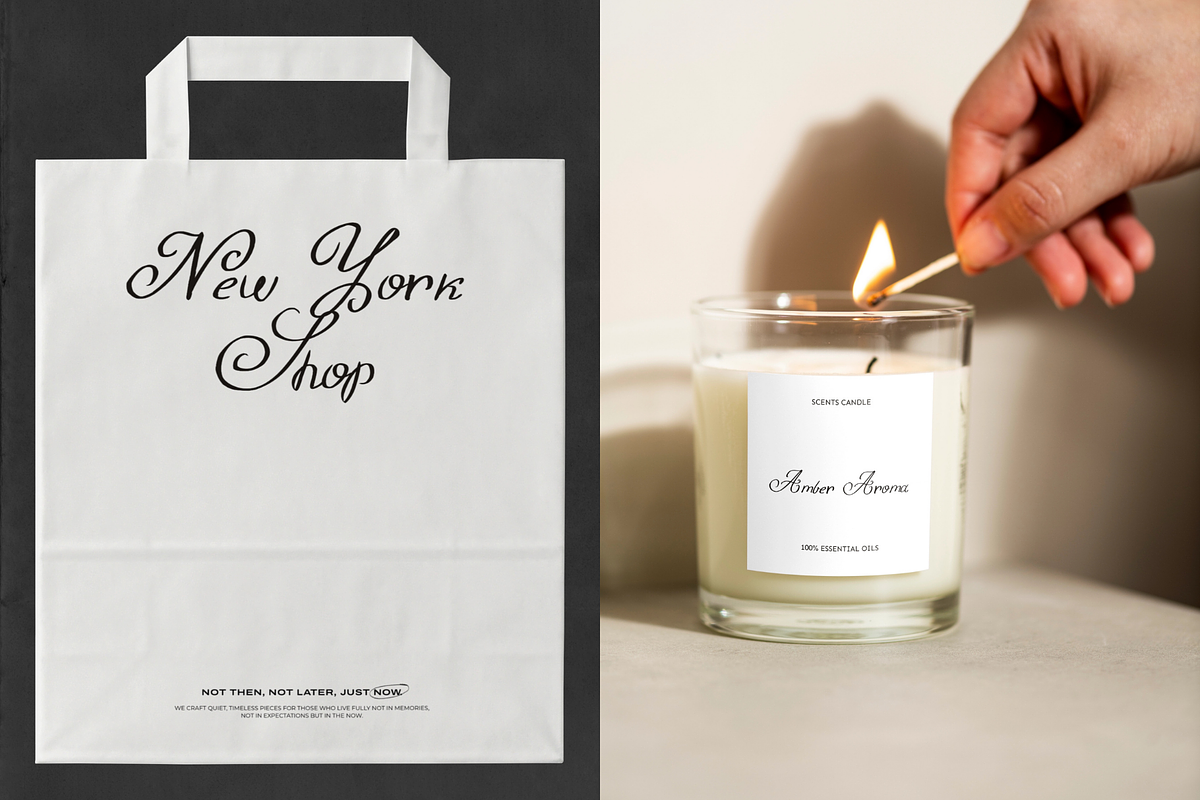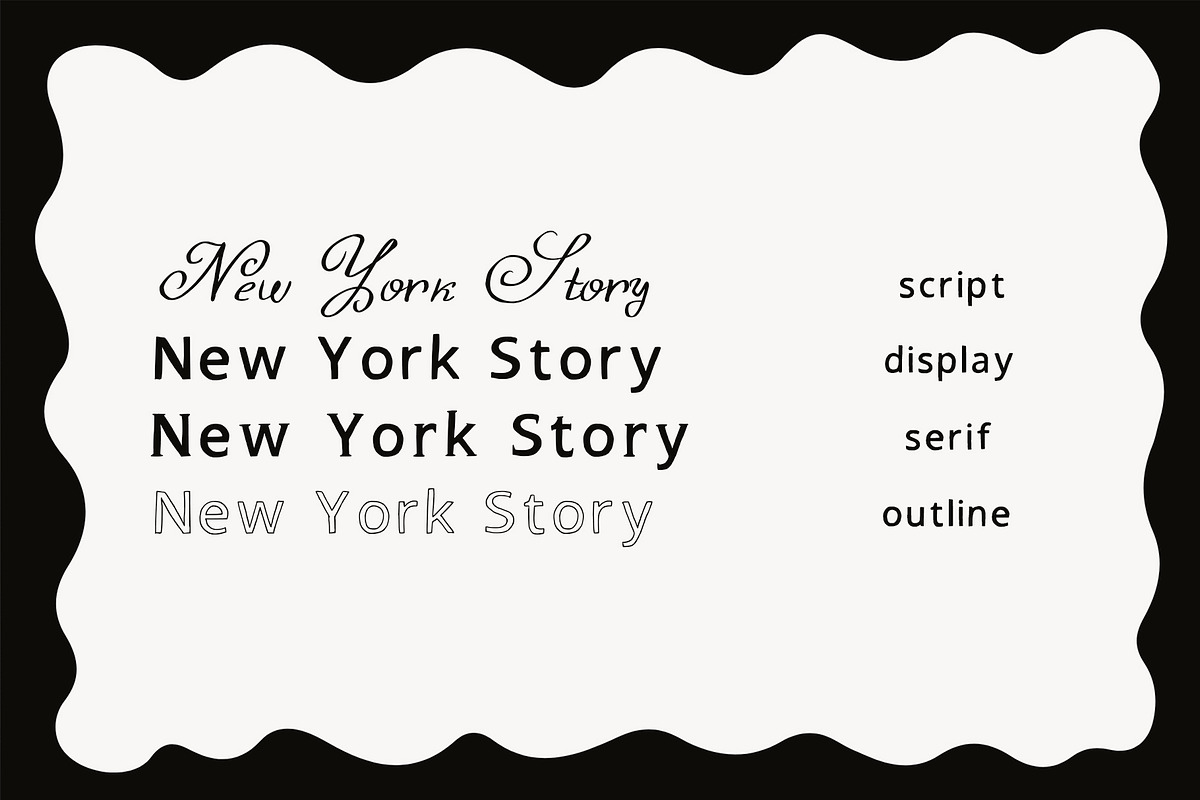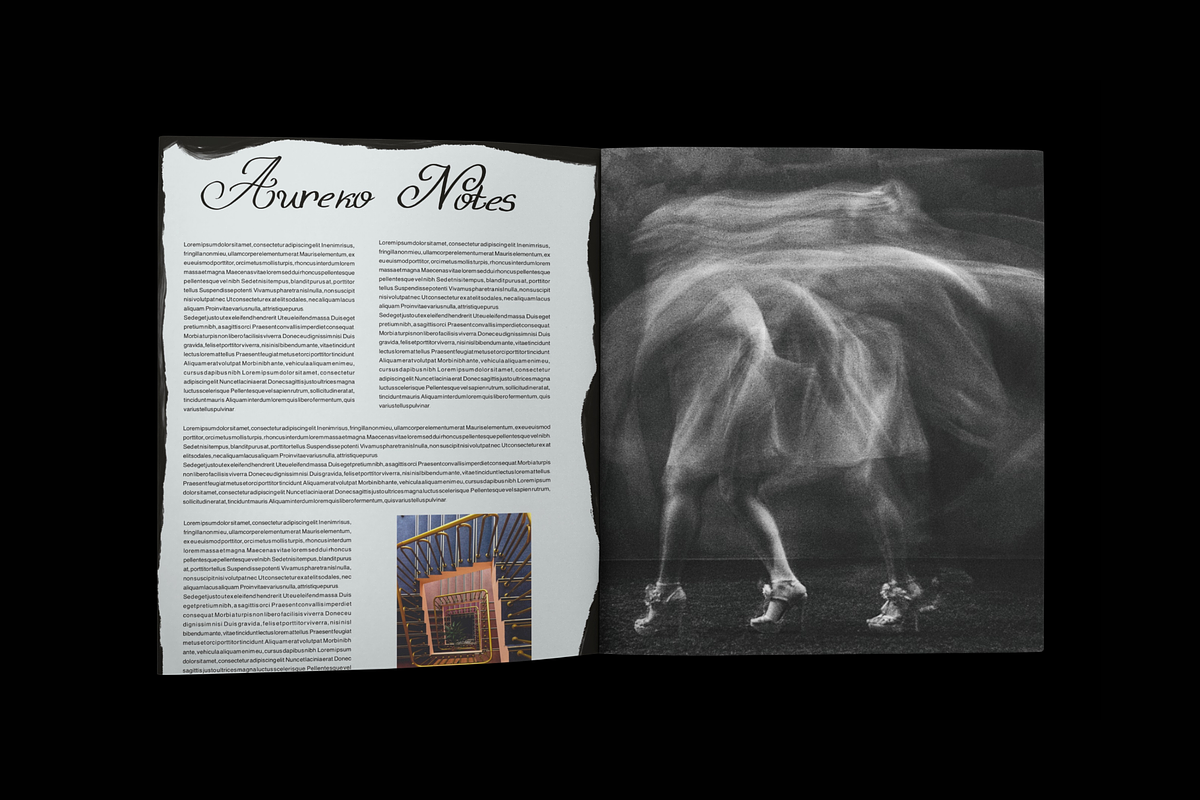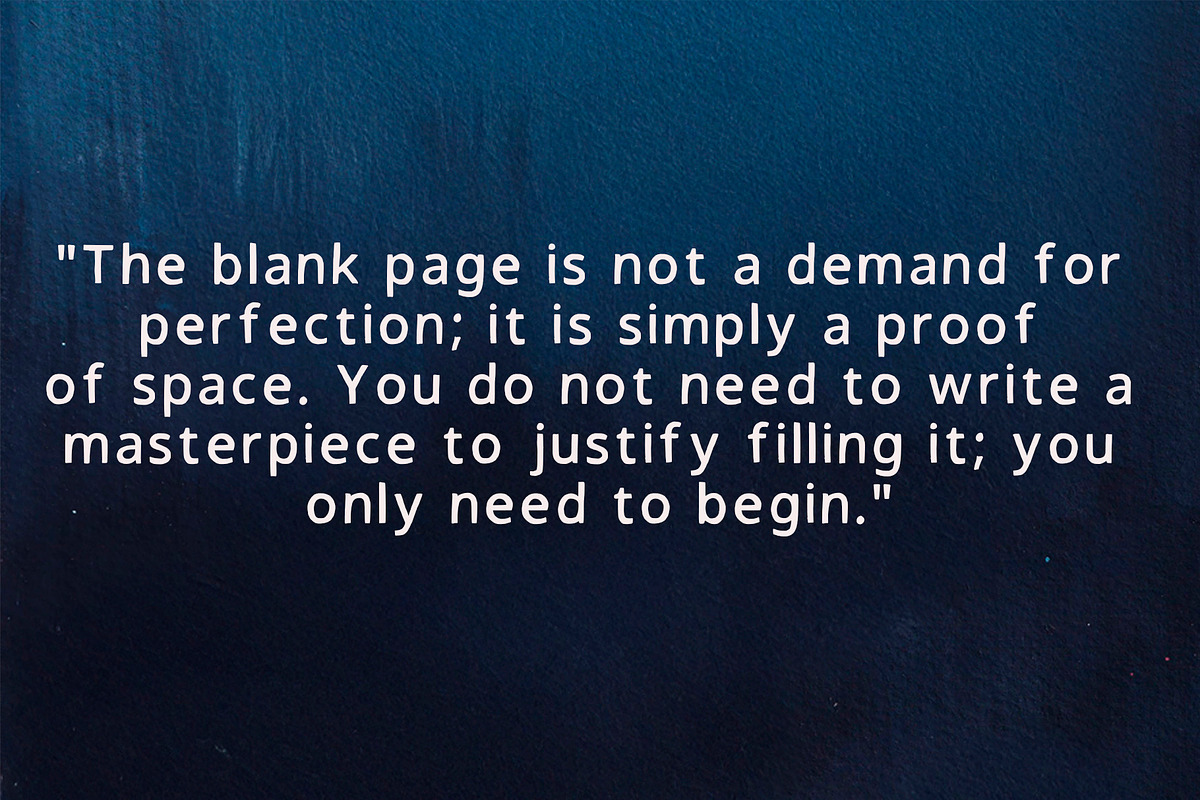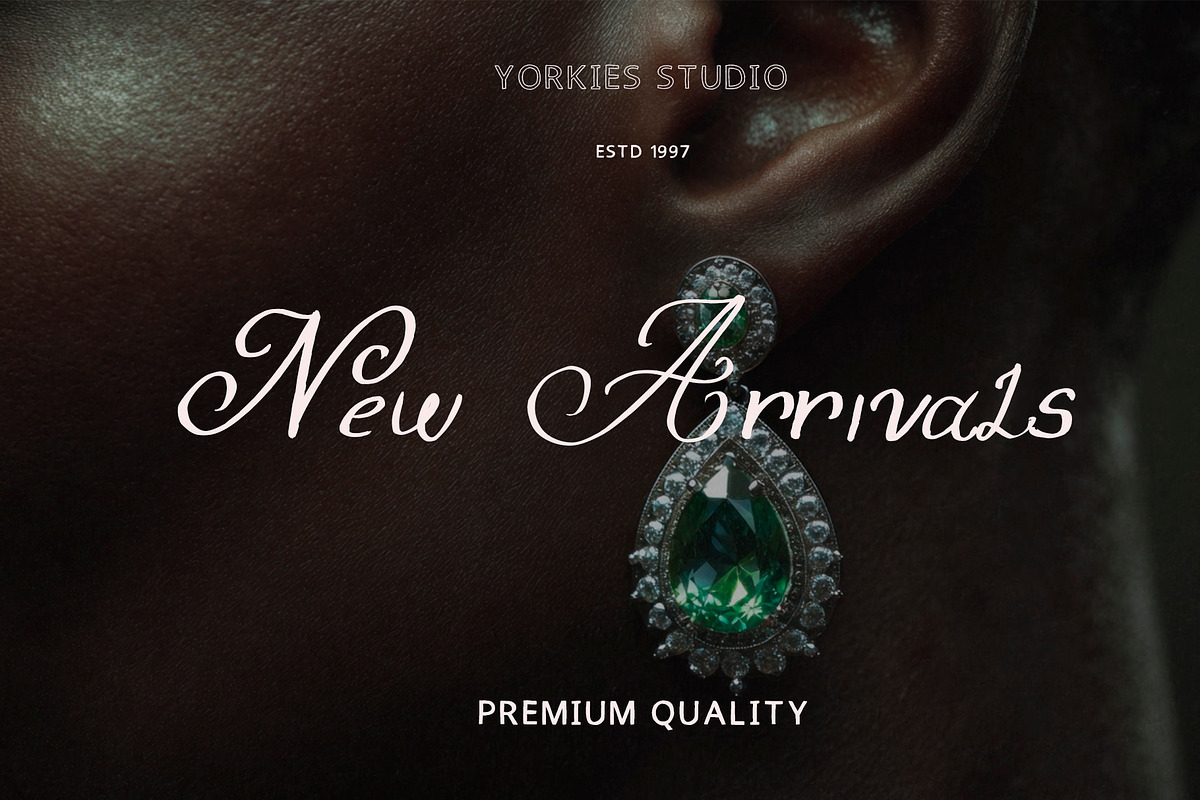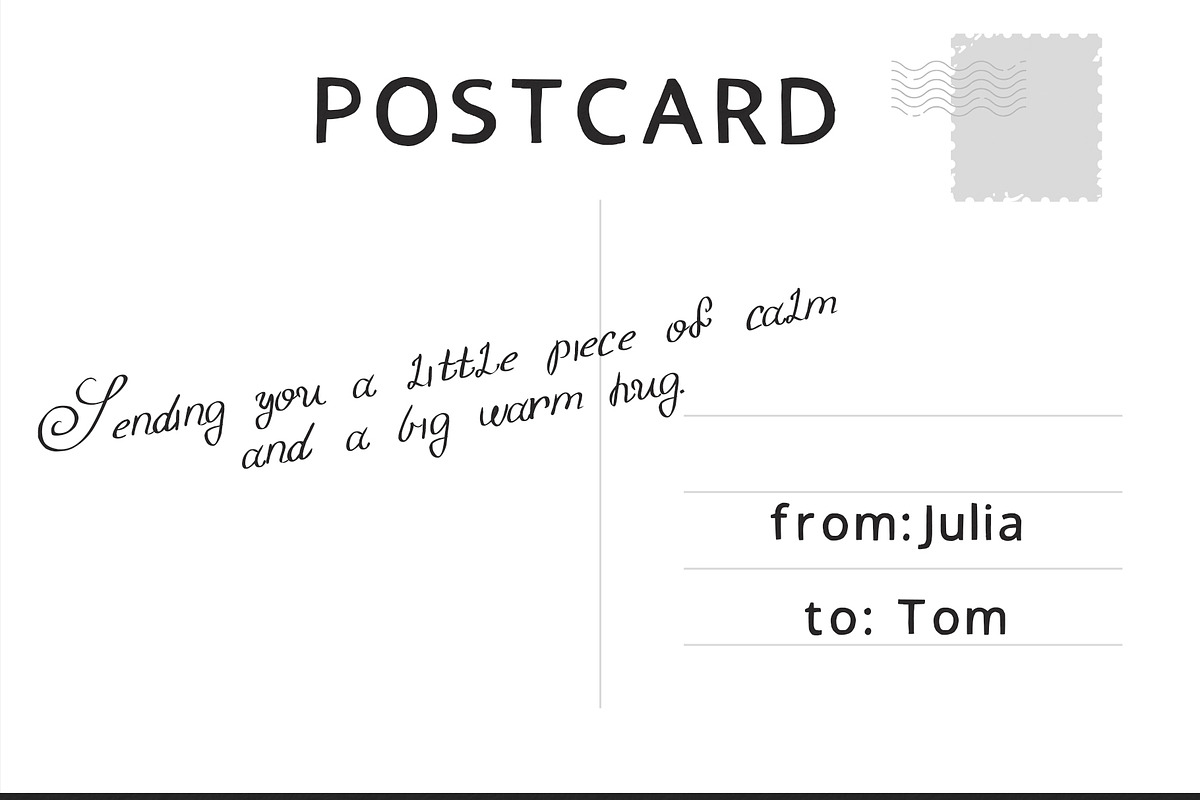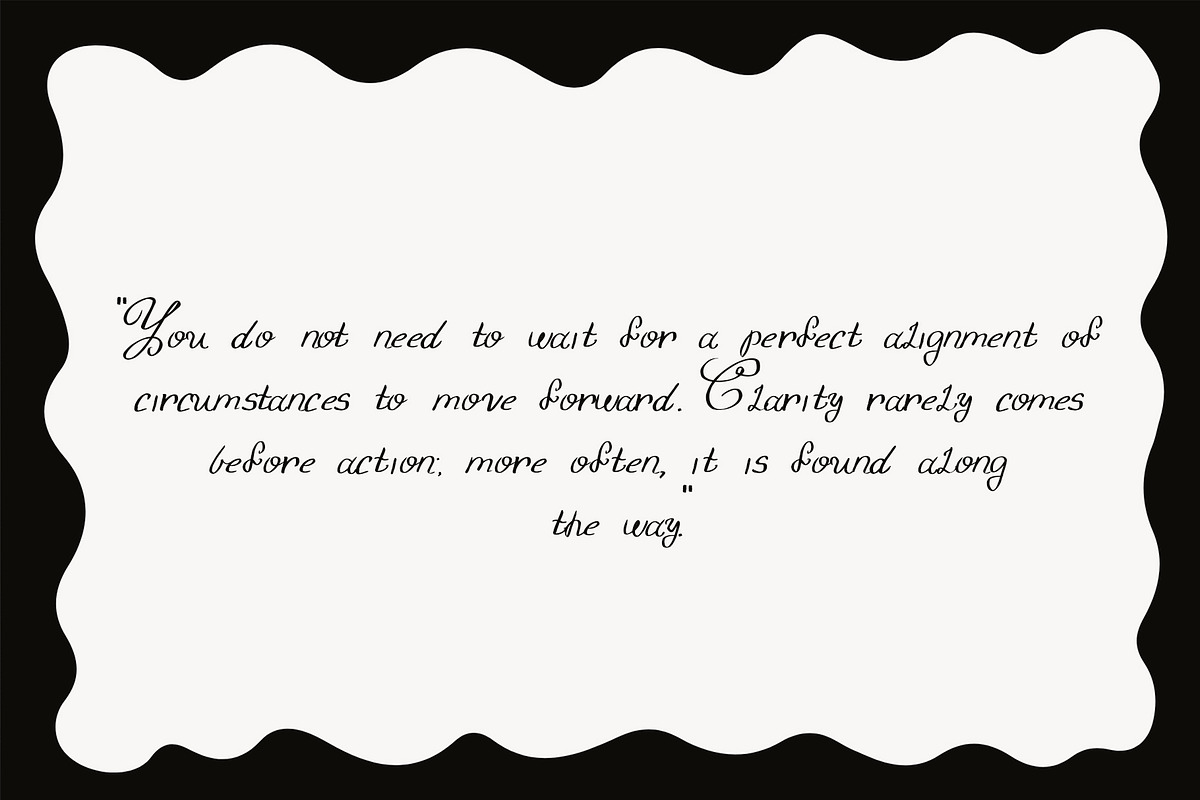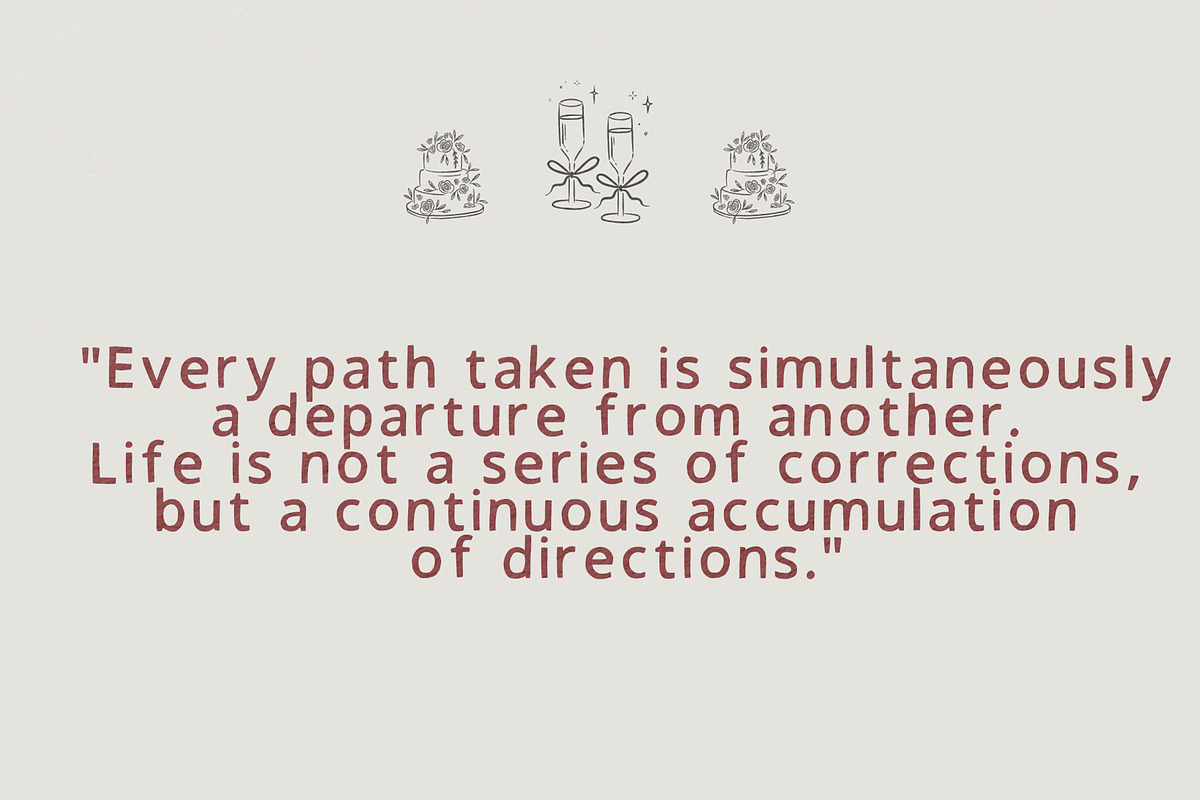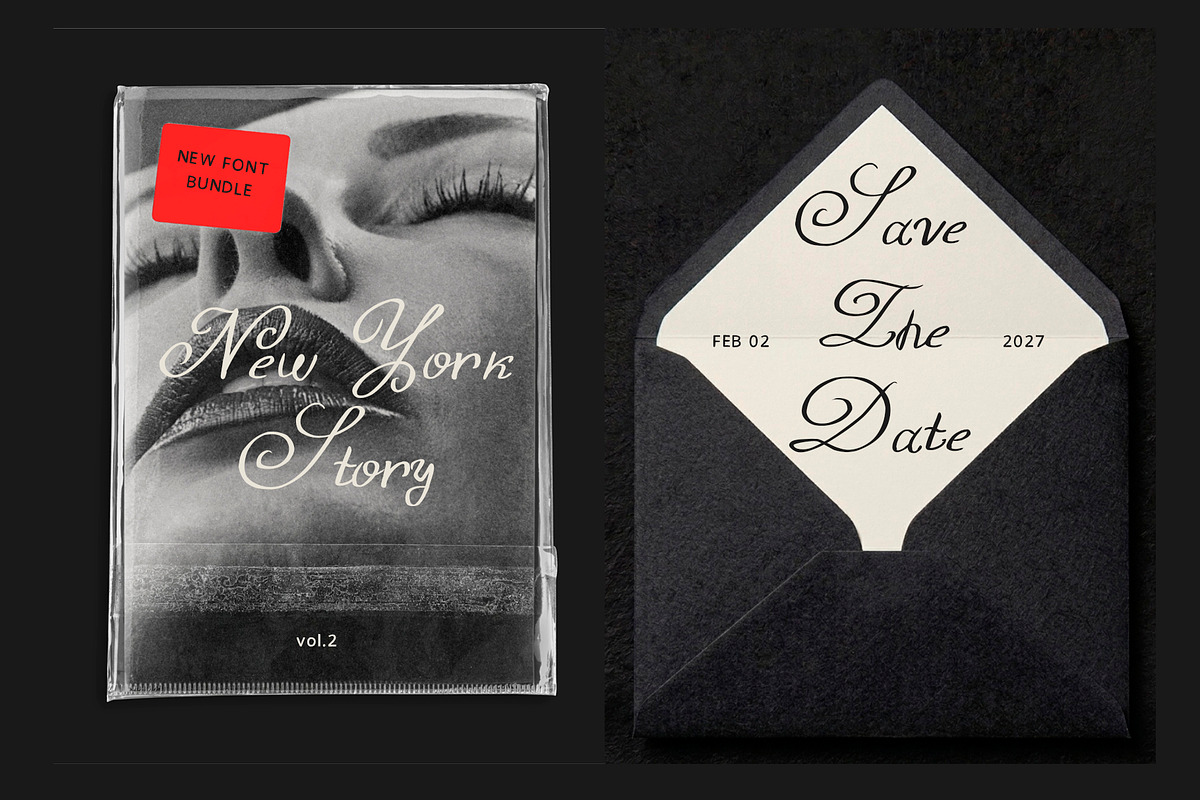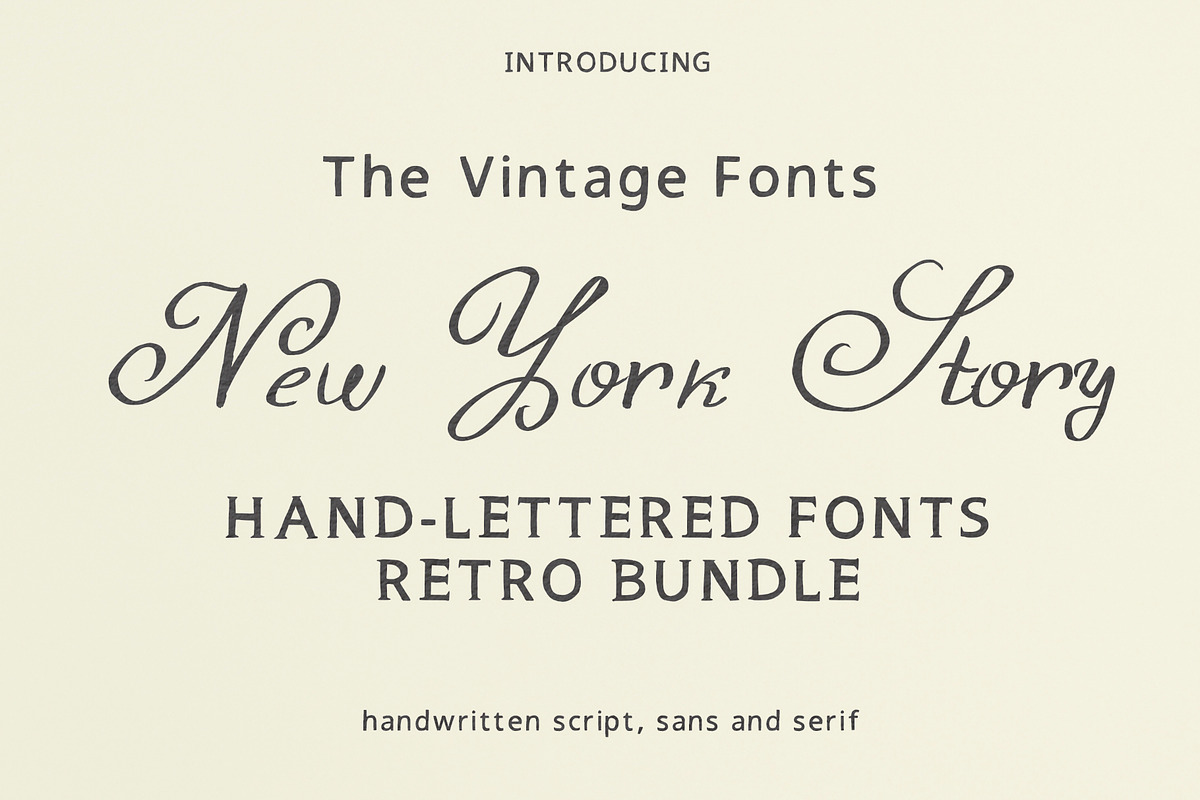
4 in 1 New York Story Retro Fonts
Introducing The Vintage Fonts: New York Story – A Hand-Lettered Retro Bundle
handwritten script,
rustic sans,
outline sans
and elegant serif fonts